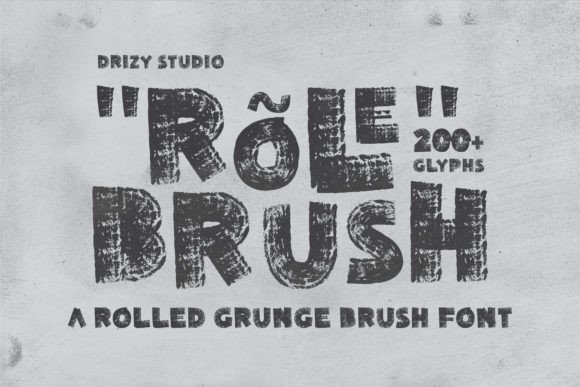
Introducing Rolebrush Font: The Ultimate Grunge Brush Font for Authentic Designs
The Rolebrush Font, specifically the Rolebrush Rolled Grunge Brush Font, is a unique and captivating typeface that has been gaining attention in the design world. Characterized by its grungy texture and rolled appearance, this font is reminiscent of weathered soil, bringing a sense of ruggedness and authenticity to any design project. In this article, we’ll explore the features, benefits, and uses of the Rolebrush Font, and how it can elevate your creative endeavors.
The Distinct Features of Rolebrush Font
The Rolebrush Rolled Grunge Brush Font boasts a range of distinct features that set it apart from other typefaces. Its irregular strokes, distressed look, and rugged texture give it a worn aesthetic that is perfect for conveying a sense of age and authenticity. The font’s grungy texture is similar to that of weathered soil, adding a rustic charm to any text or artwork.
One of the standout features of the Rolebrush Font is its rolled appearance. This unique characteristic gives the font a sense of movement and fluidity, making it perfect for designs that require a dynamic and expressive feel. The font’s distressed look also adds to its rugged charm, giving it a worn and aged appearance that is perfect for designs that require a sense of history and nostalgia.
The Benefits of Using Rolebrush Font
The Rolebrush Font offers a range of benefits for designers and artists. Its unique and captivating appearance makes it perfect for designs that require a sense of authenticity and age. The font’s grungy texture and rolled appearance add a rustic charm to any text or artwork, making it perfect for designs that require a sense of ruggedness and character.
Another benefit of the Rolebrush Font is its versatility. The font can be used for a range of design projects, from posters and logos to packaging and branding. Its distressed look and rugged texture make it perfect for designs that require a sense of grit and realism, while its rolled appearance adds a touch of elegance and sophistication.
Uses of Rolebrush Font
The Rolebrush Font is a versatile typeface that can be used for a range of design projects. Here are some of the most popular uses of the font:
- Posters and Flyers: The Rolebrush Font is perfect for posters and flyers that require a sense of ruggedness and authenticity. Its grungy texture and rolled appearance add a rustic charm to any text or artwork, making it perfect for promoting events, products, or services.
- Logos and Branding: The Rolebrush Font is also perfect for logos and branding projects that require a sense of grit and realism. Its distressed look and rugged texture make it perfect for creating logos that are bold, expressive, and memorable.
- Packaging and Labeling: The Rolebrush Font can also be used for packaging and labeling projects that require a sense of earthiness and character. Its rolled appearance and grungy texture add a touch of elegance and sophistication to any packaging design.
Tips for Using Rolebrush Font
Here are some tips for using the Rolebrush Font in your design projects:
- Use it sparingly: The Rolebrush Font is a bold and expressive typeface that can quickly overwhelm a design. Use it sparingly to add emphasis and create visual interest.
- Experiment with colors: The Rolebrush Font looks great in a range of colors, from earthy tones to bold brights. Experiment with different colors to find the perfect look for your design.
- Combine it with other fonts: The Rolebrush Font can be combined with other fonts to create a unique and visually appealing design. Try pairing it with a clean sans-serif font for a bold and modern look.
The Rolebrush Font, specifically the Rolebrush Rolled Grunge Brush Font, is a unique and captivating typeface that is perfect for designers and artists who require a sense of authenticity and age in their designs. Its grungy texture, rolled appearance, and distressed look make it perfect for conveying a sense of ruggedness and character. With its versatility, ease of use, and range of benefits, the Rolebrush Font is a must-have for any designer or artist looking to add a touch of earthiness and character to their creative endeavors.
- What is the Rolebrush Font? The Rolebrush Font is a unique and captivating typeface characterized by its grungy texture and rolled appearance.
- What is the Rolebrush Rolled Grunge Brush Font? The Rolebrush Rolled Grunge Brush Font is a specific type of the Rolebrush Font, characterized by its grungy texture, rolled appearance, and distressed look.
- What are the benefits of using the Rolebrush Font? The Rolebrush Font offers a range of benefits, including its unique and captivating appearance, versatility, and ease of use.
- What are some popular uses of the Rolebrush Font? The Rolebrush Font is perfect for posters, logos, packaging, and branding projects that require a sense of ruggedness and authenticity.